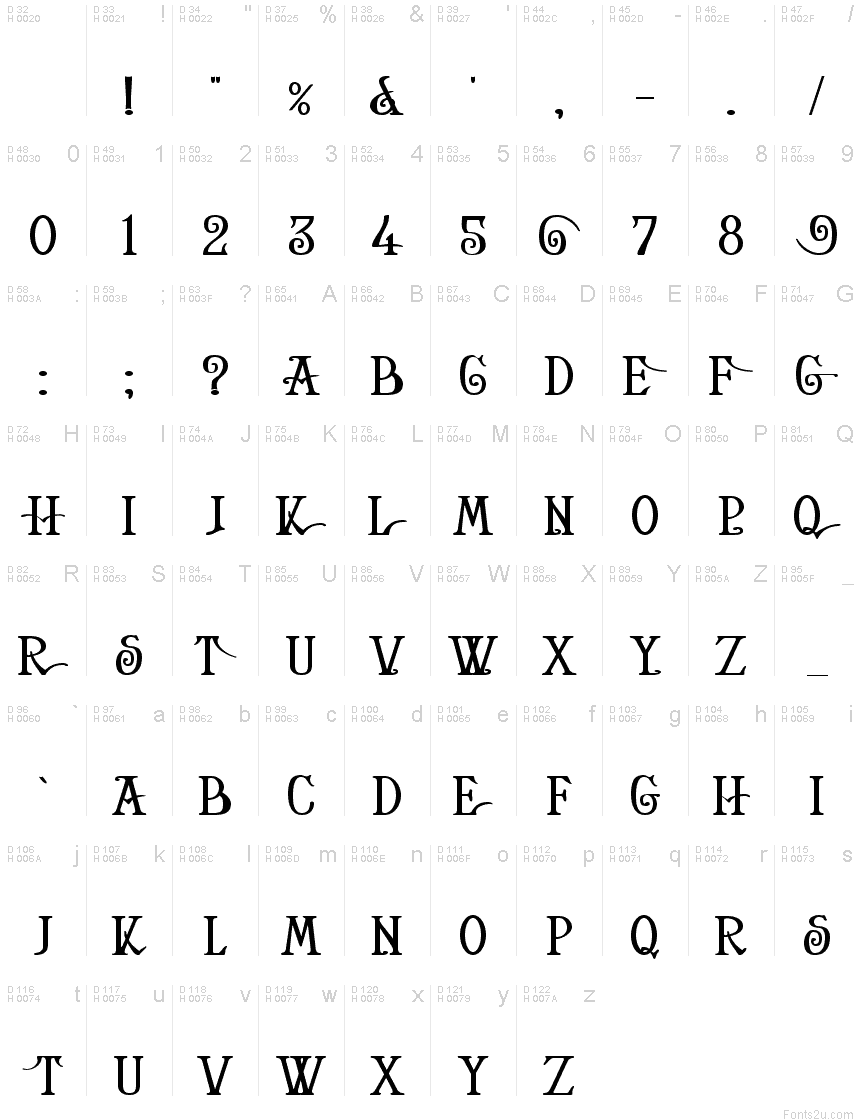
Helena-Squat
Helena-Squat font by PJL is a free decorative serif typeface. Its wide, compact letters are stitched together with curling, vine-like strokes that spill along the baseline, giving every word a slightly eerie, storybook feel. The texture is inky and dense, so titles feel weighty and a bit mysterious, like something pulled from an old grimoire or fantasy map.
This free font shines on gothic posters, fantasy or horror book covers, band logos, occult or tarot packaging, and moody event invitations. Using Helena-Squat at larger sizes lets those sweeping curves and bridges really breathe; support it with a clean geometric sans for body text to keep the layout readable and grounded.